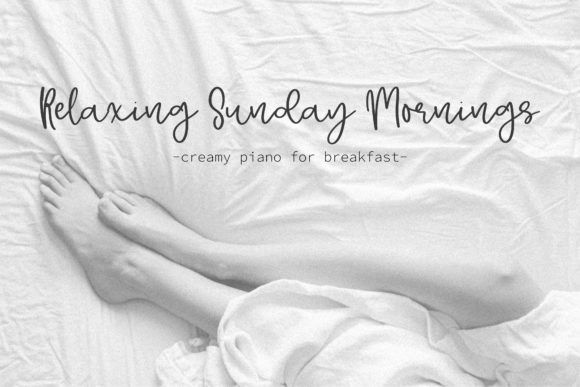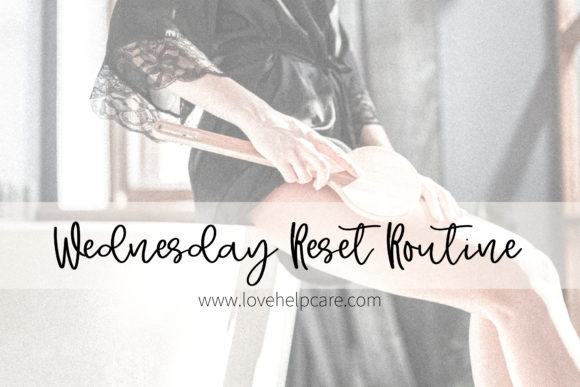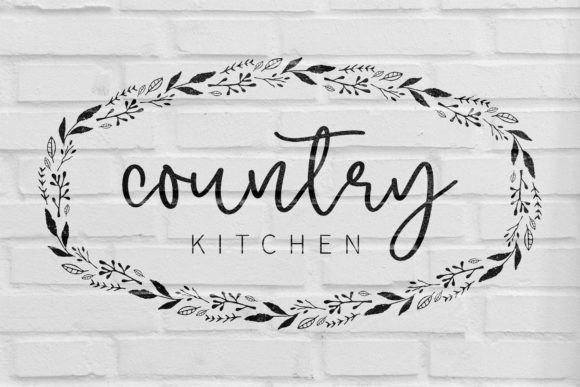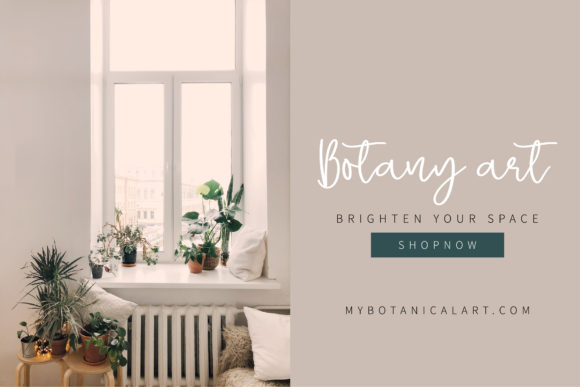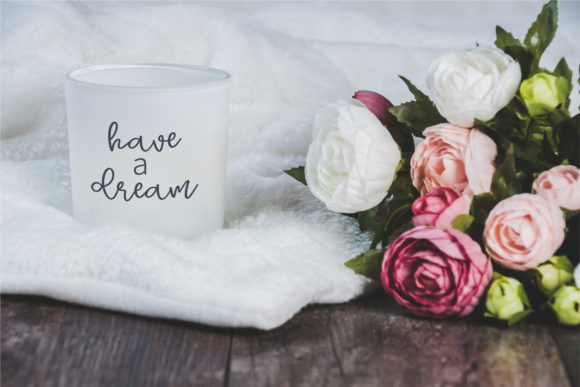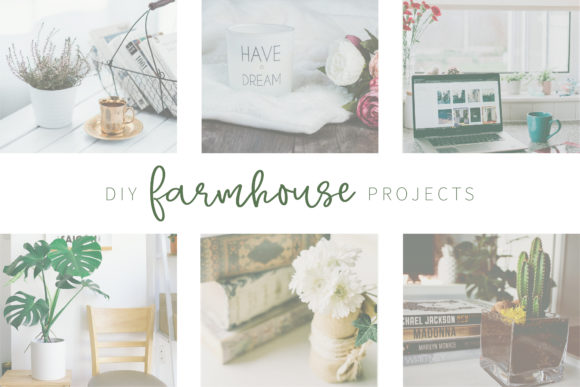
Introducing Farmhouse Style Font: A Sweet and Flowing Script for Your Creative Projects
Are you a designer, crafter, or DIY enthusiast looking for a font that can add a touch of elegance and charm to your creative projects? Look no further than the Farmhouse Style Font, a beautiful and versatile script handwritten font that is perfect for a wide range of applications. In this article, we’ll take a closer look at the Farmhouse Style Font, its features, and how you can use it to create stunning wedding invitations, stationary art, social media posts, and more.
What is Farmhouse Style Font?
Farmhouse Style Font is a sweet and flowing script handwritten font that is designed to evoke a sense of warmth, comfort, and nostalgia. Its incredibly versatile style makes it perfect for a wide range of creative projects, from wedding invitations and stationary art to social media posts and blog graphics. The font features beautiful, flowing script letters with a rustic, handmade feel that is sure to add a touch of charm to any design.
Key Features of Farmhouse Style Font
So, what makes Farmhouse Style Font so special? Here are just a few of its key features:
- Handwritten script style: Farmhouse Style Font is a handwritten script font that features beautiful, flowing letters with a rustic, handmade feel.
- Versatile: The font is incredibly versatile and can be used for a wide range of creative projects, from wedding invitations and stationary art to social media posts and blog graphics.
- Elegant and charming: Farmhouse Style Font has an elegant and charming style that is sure to add a touch of sophistication and whimsy to any design.
- Easy to read: Despite its flowing script style, Farmhouse Style Font is easy to read and can be used for both headings and body text.
Using Farmhouse Style Font for Your Creative Projects
So, how can you use Farmhouse Style Font for your creative projects? Here are just a few ideas to get you started:
Wedding Invitations
Farmhouse Style Font is perfect for wedding invitations, with its elegant and charming style adding a touch of sophistication and romance to any design. Use it to create beautiful, rustic-chic wedding invitations that will set the tone for your special day.
Stationary Art
Farmhouse Style Font is also great for stationary art, such as printable art, journals, and planners. Use it to add a touch of elegance and charm to your designs, and create beautiful pieces that will inspire and delight.
Social Media Posts
Farmhouse Style Font is perfect for social media posts, with its flowing script style adding a touch of whimsy and charm to any design. Use it to create eye-catching social media graphics that will stand out in a crowded feed.
Blog Graphics
Farmhouse Style Font is also great for blog graphics, such as headers, footers, and other design elements. Use it to add a touch of elegance and sophistication to your blog, and create a cohesive brand identity.
Tips for Using Farmhouse Style Font
Here are just a few tips for using Farmhouse Style Font:
- Use it with a rustic or vintage color palette: Farmhouse Style Font looks beautiful with a rustic or vintage color palette, featuring earthy tones such as green, blue, and yellow.
- Pair it with simple graphics: Farmhouse Style Font is a statement font, so pair it with simple graphics and illustrations to avoid overwhelming the design.
- Experiment with different sizes and styles: Farmhouse Style Font is versatile, so experiment with different sizes and styles to find the perfect look for your design.
Farmhouse Style Font is a beautiful and versatile script handwritten font that is perfect for a wide range of creative projects. Its elegant and charming style makes it perfect for wedding invitations, stationary art, social media posts, and more. With its flowing script letters and rustic, handmade feel, Farmhouse Style Font is sure to add a touch of sophistication and whimsy to any design. So why not give it a try and see how it can elevate your creative projects?